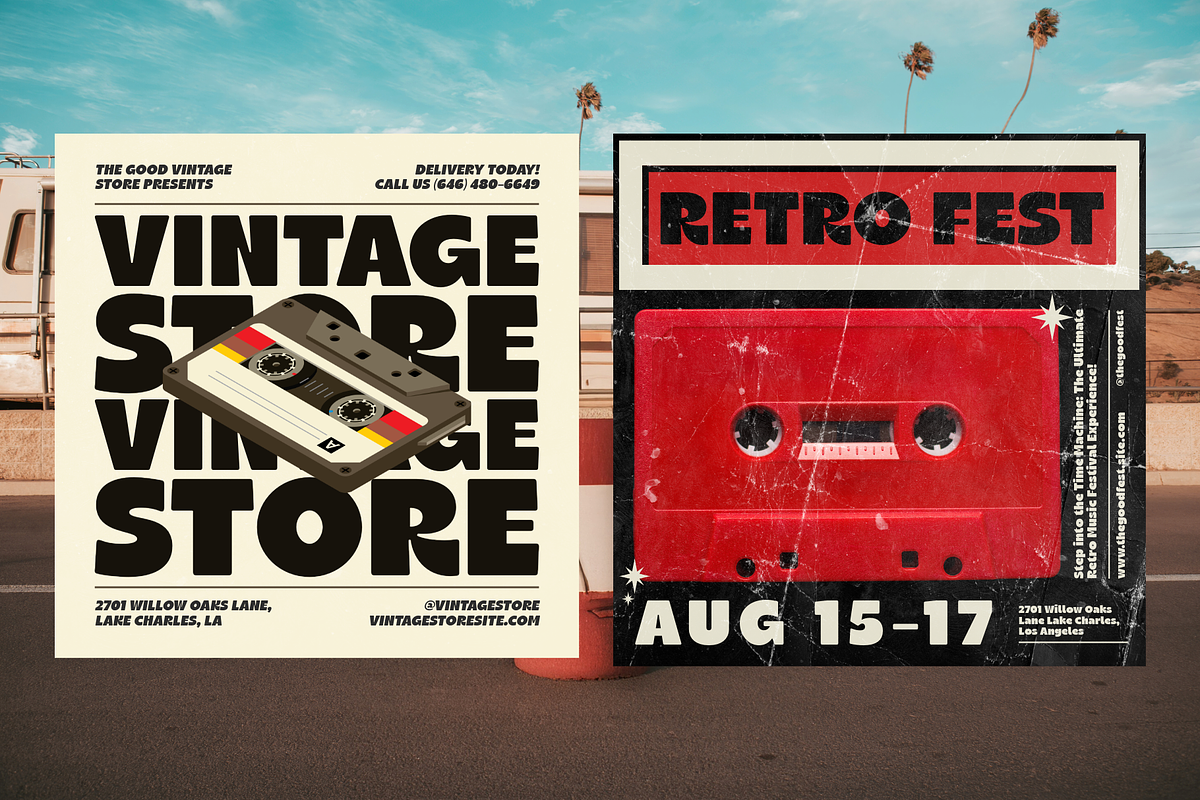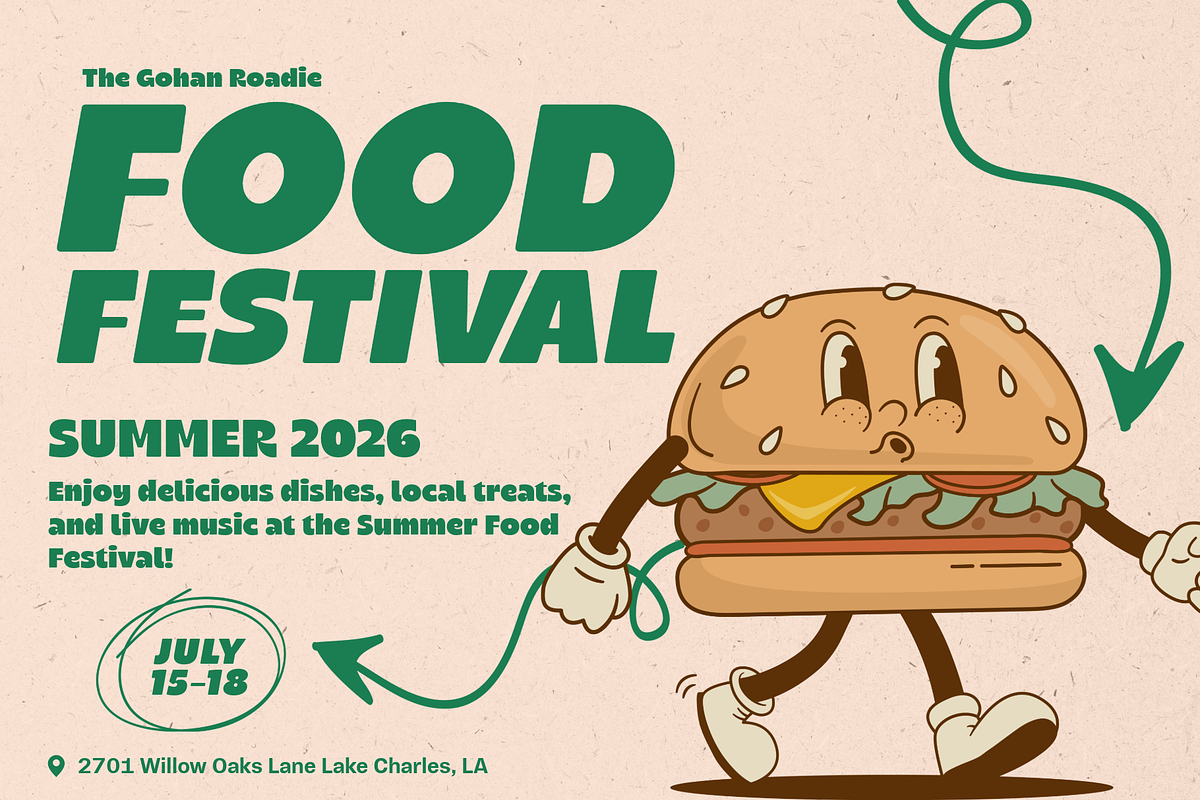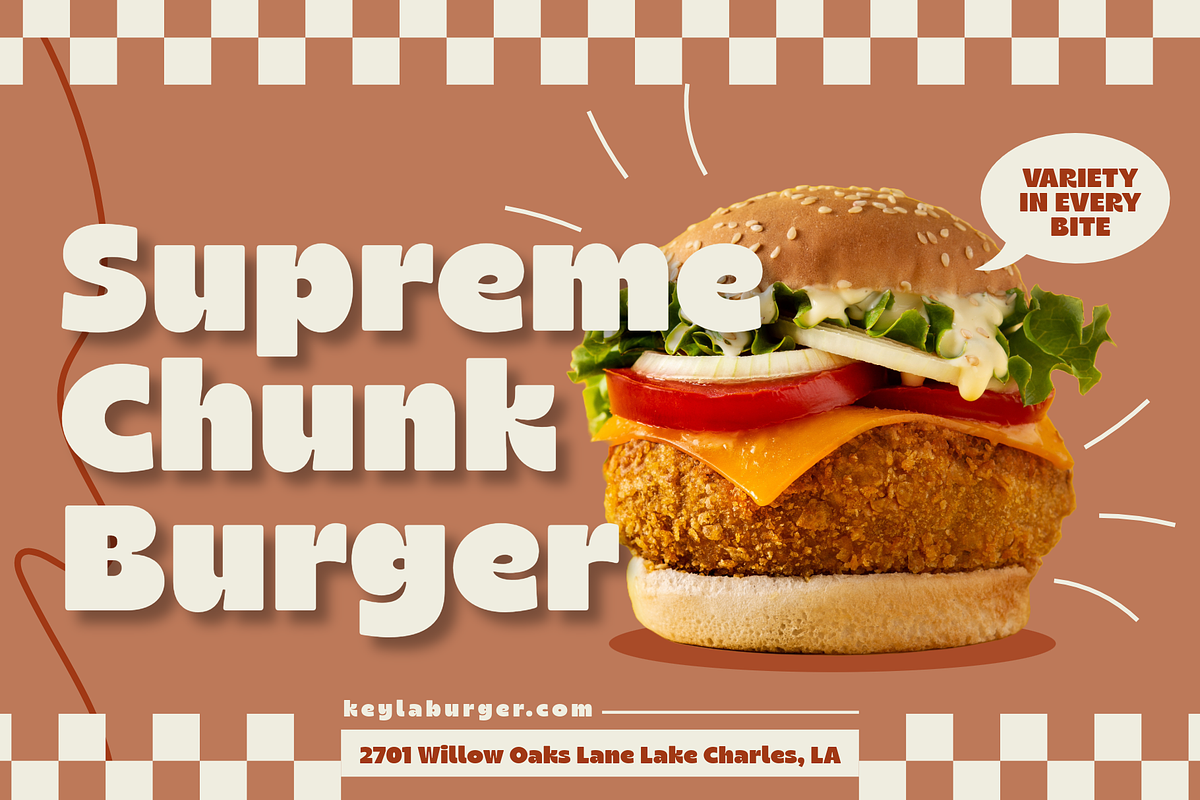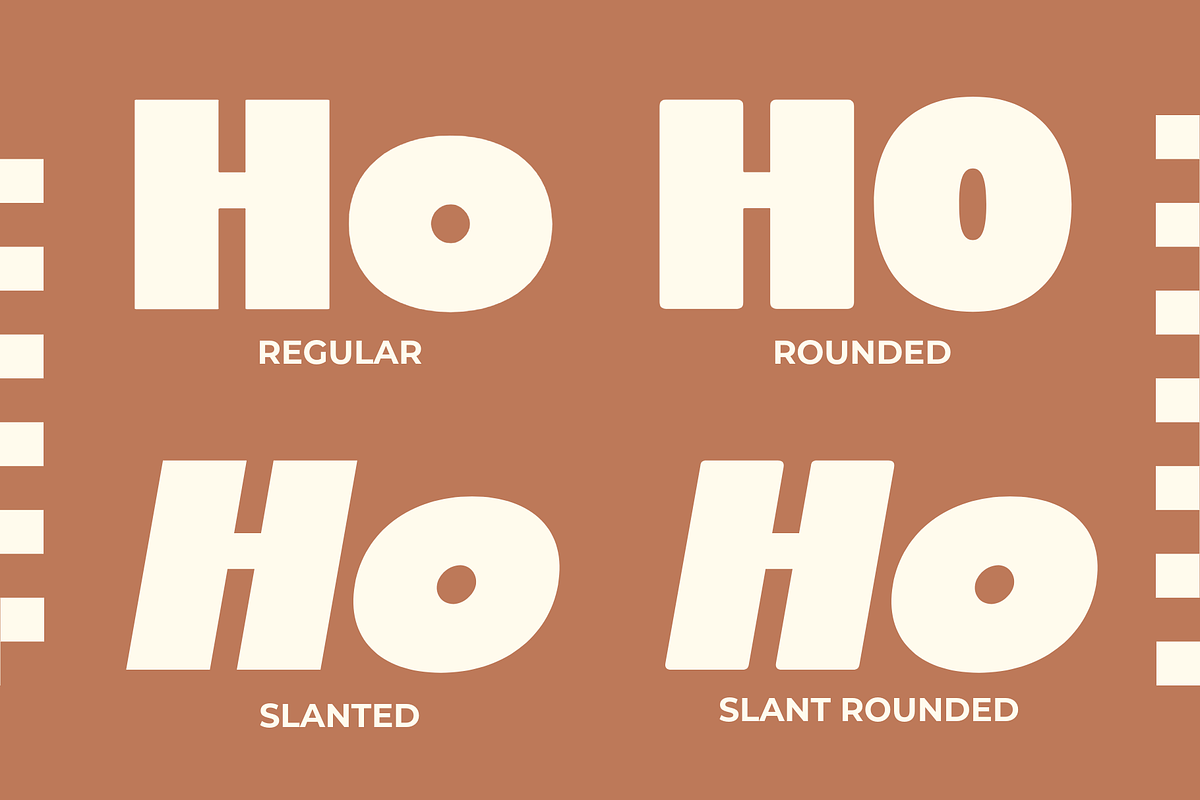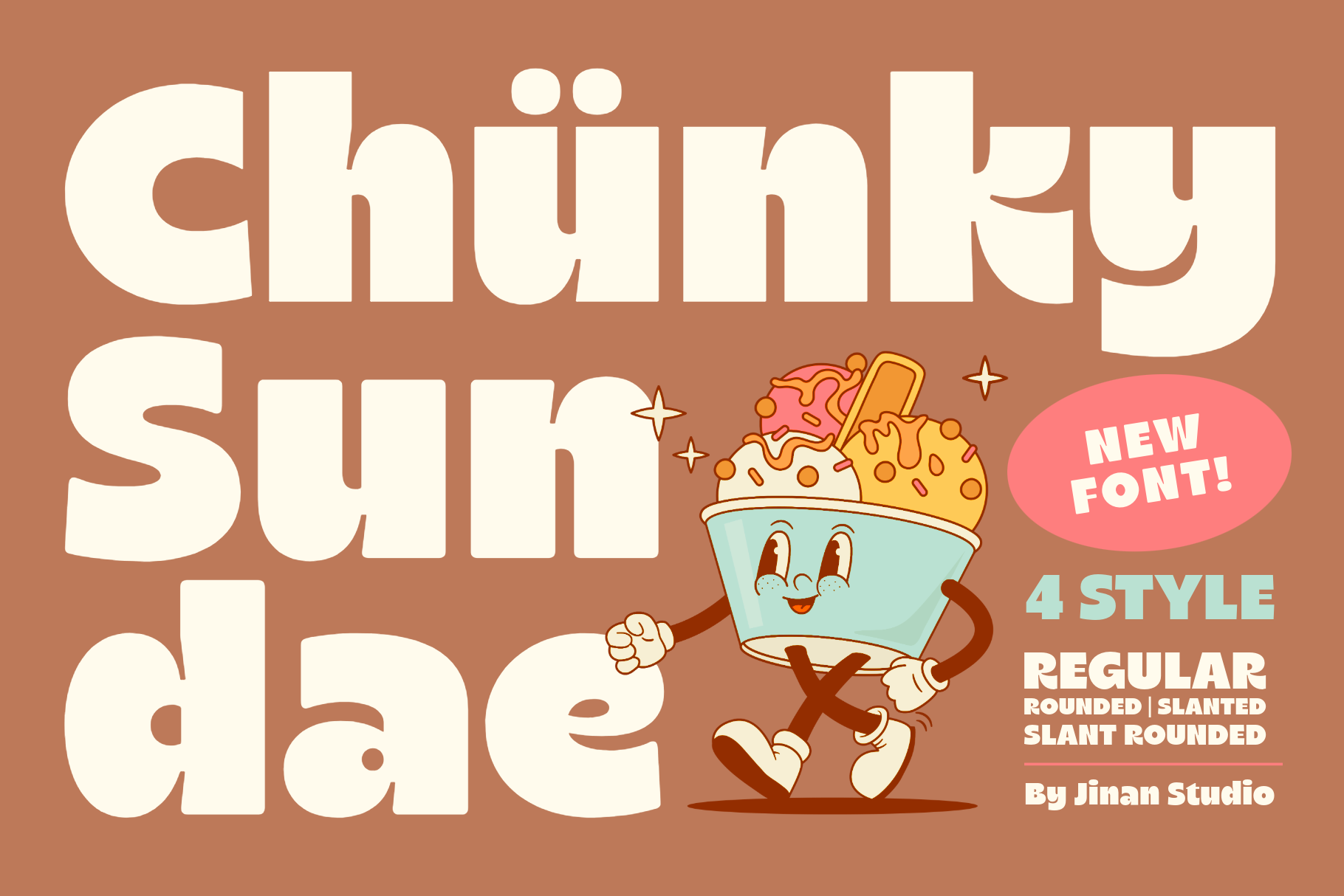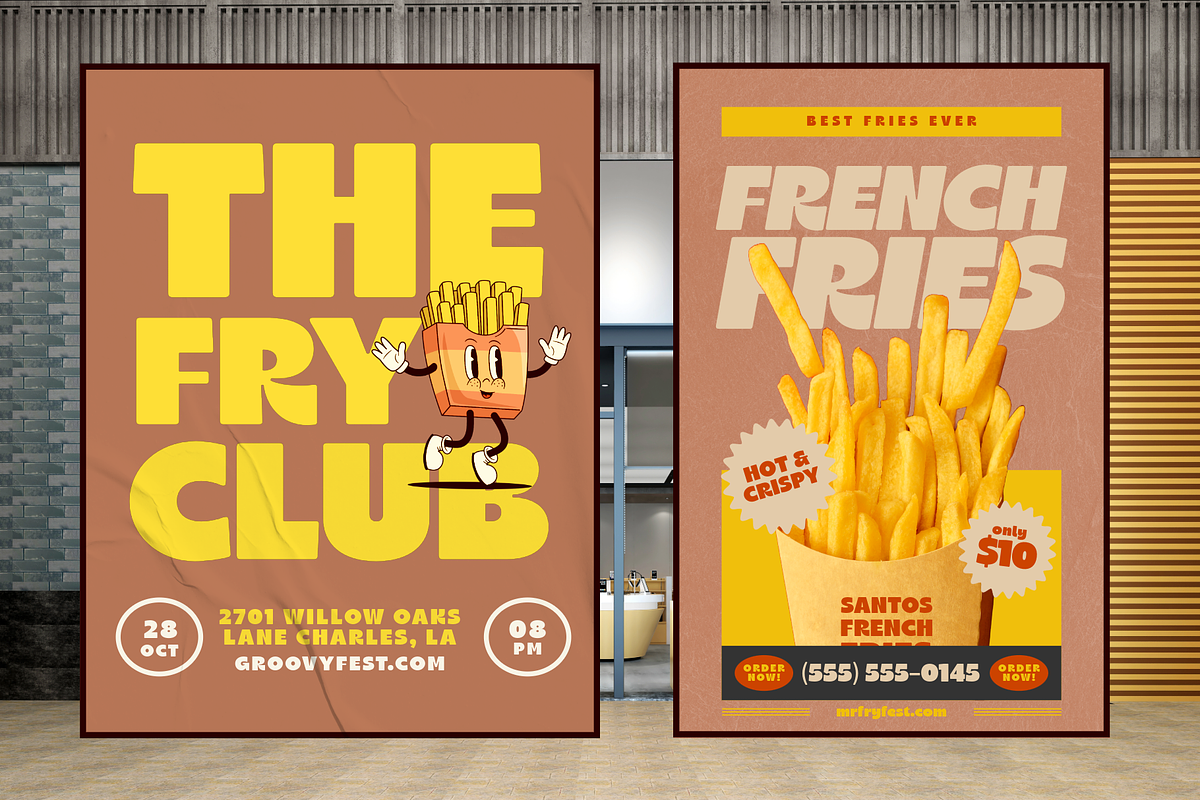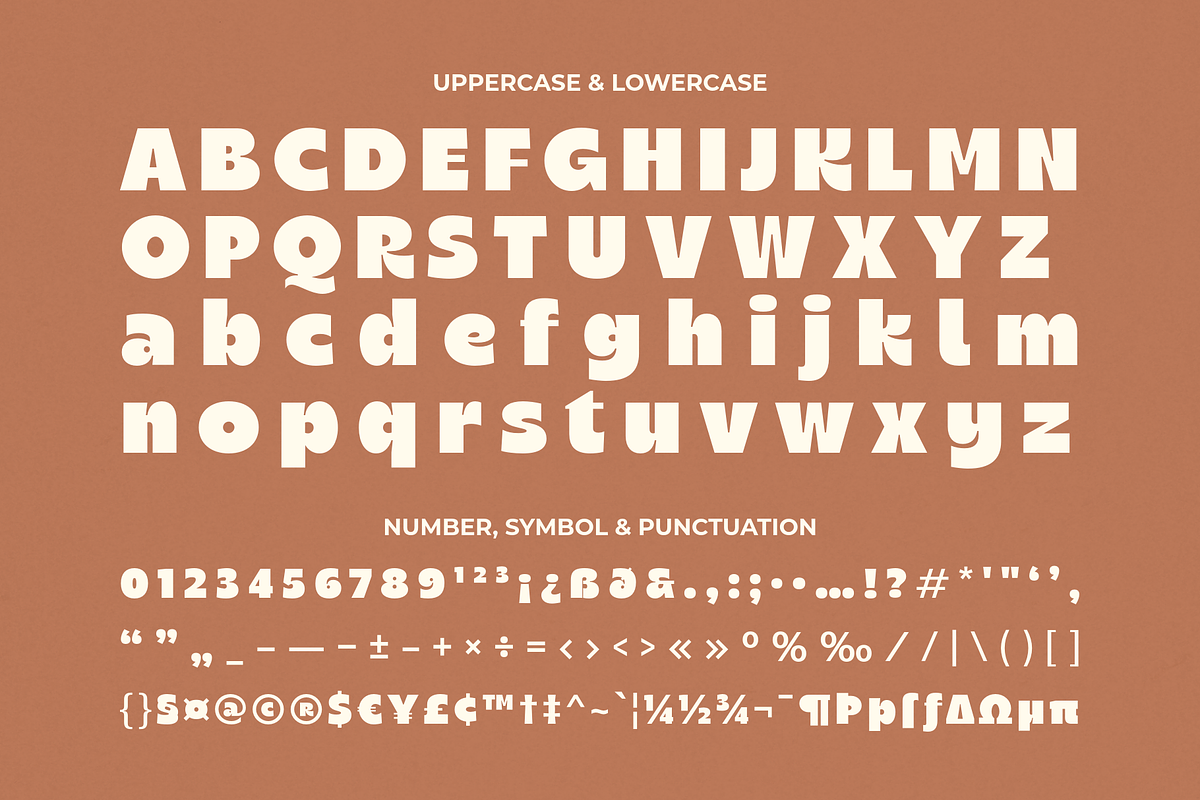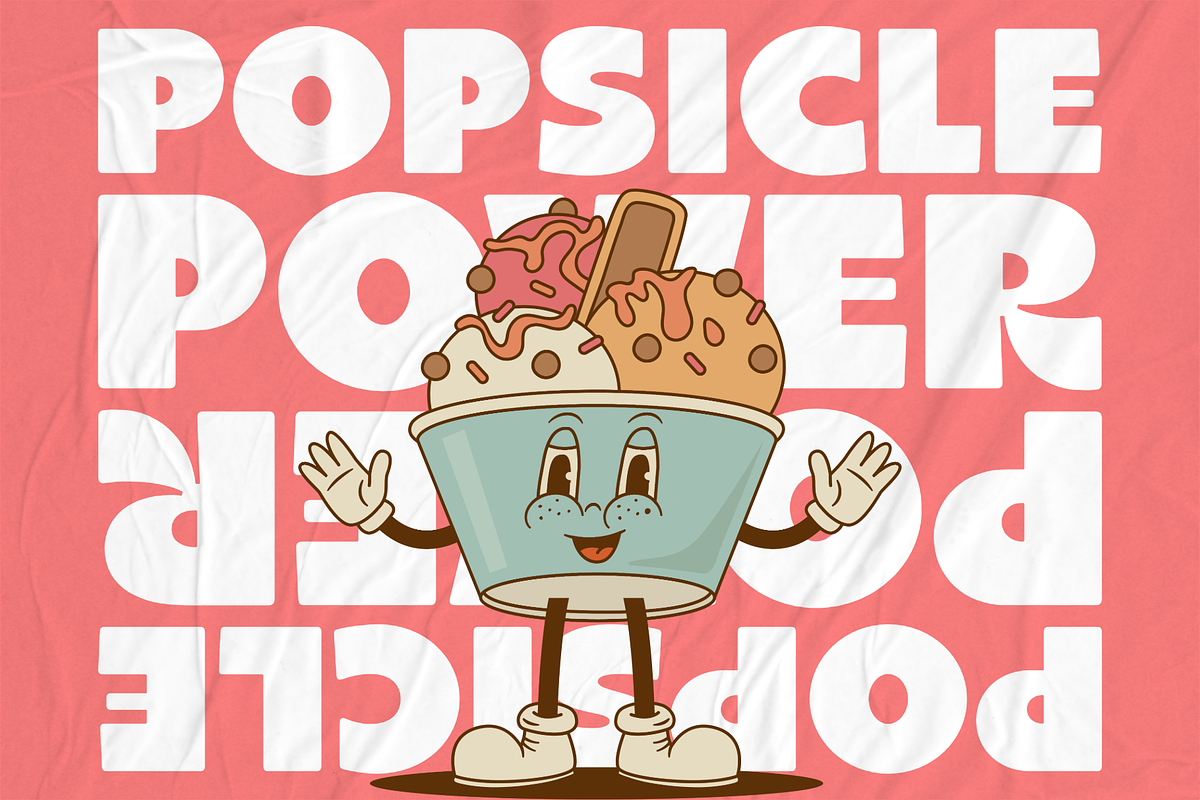
Chunky Sundae - A Bold Display Font
Chunky Sundae is a fun, chunky display font inspired by retro cartoons and tasty food packaging. Its bold shapes and friendly curves make it perfect for eye-catching logos, posters, packaging, kids’ designs, and cheerful branding. The family includes 4 styles — Regular, Rounded, Slanted, and Slant Rounded — giving you flexible options for expressive and colorful typography. Bring a sweet, nostalgic vibe to your projects with Chunky Sundae. Features - A set of uppercase and lowercase glyphs - Number, symbol, and punctuation - Multilingual Support Download Files (.zip) OTF, TTF, WOFF, WOFF2